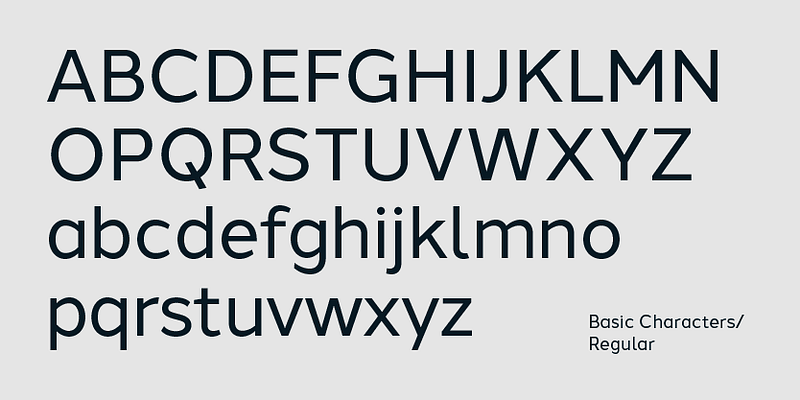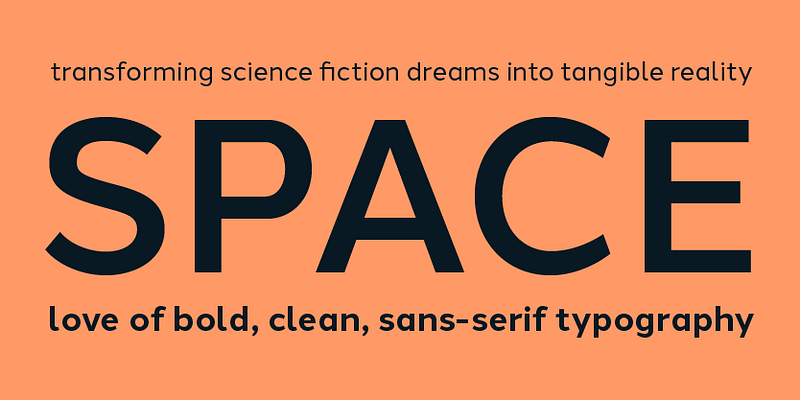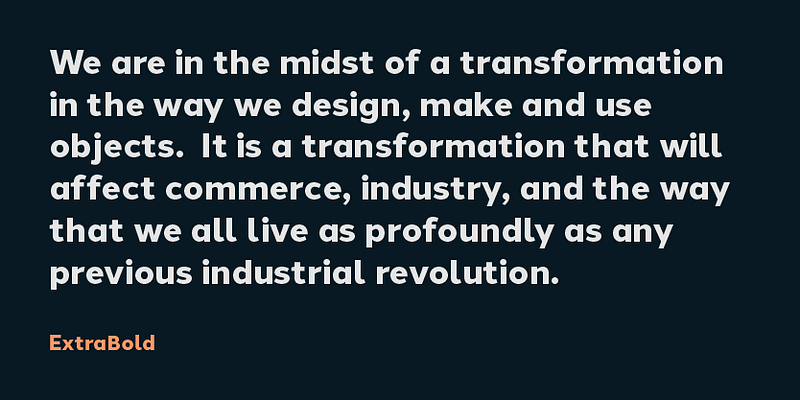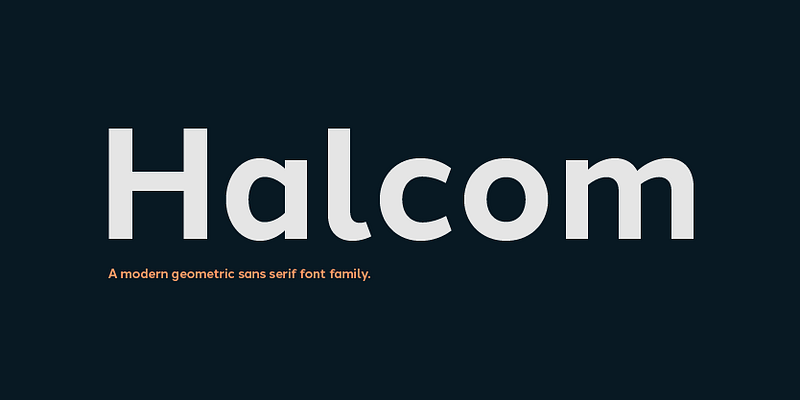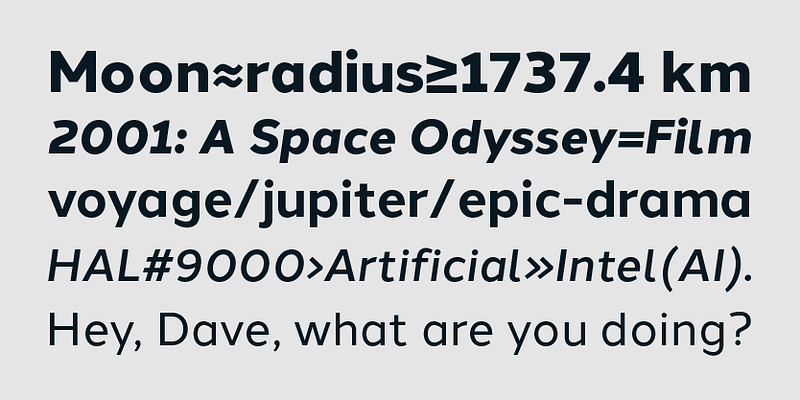
A geometric modern sans serif typeface. 16 weights with 550 characters with an alternative lowercase a, g and y, five variations of numerals, manually edited kerning and Opentype features.